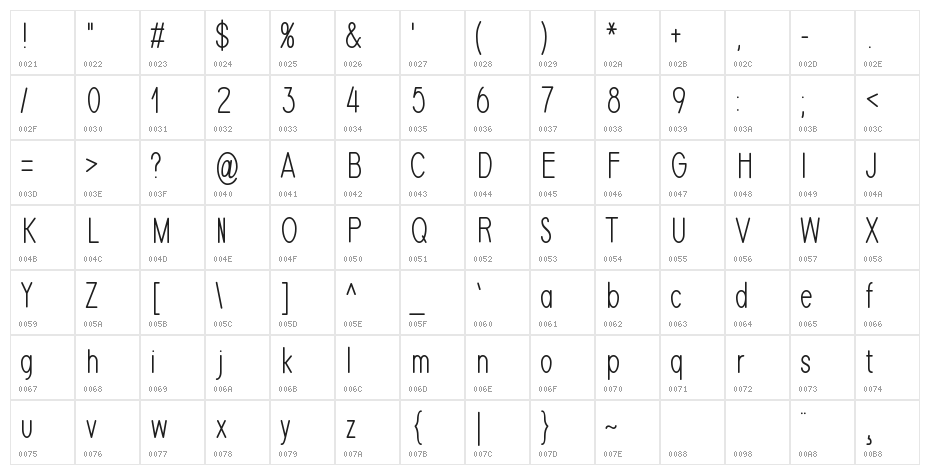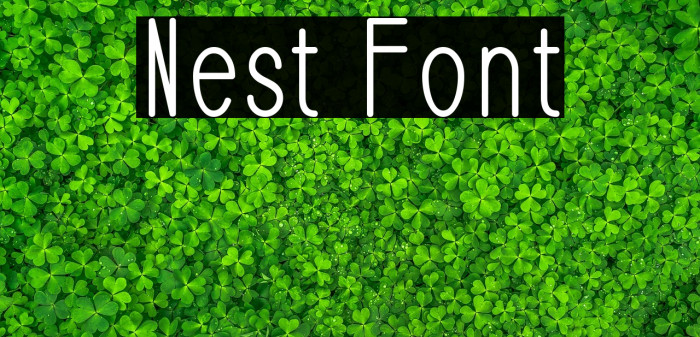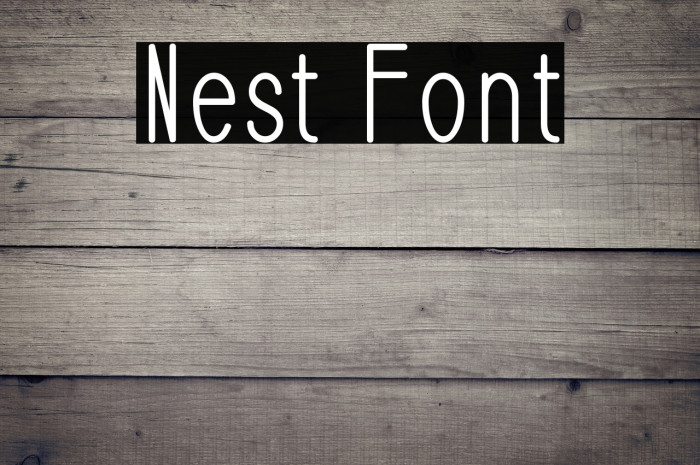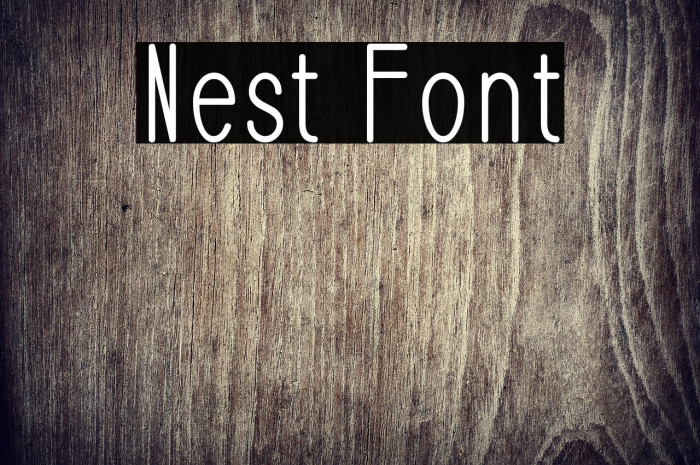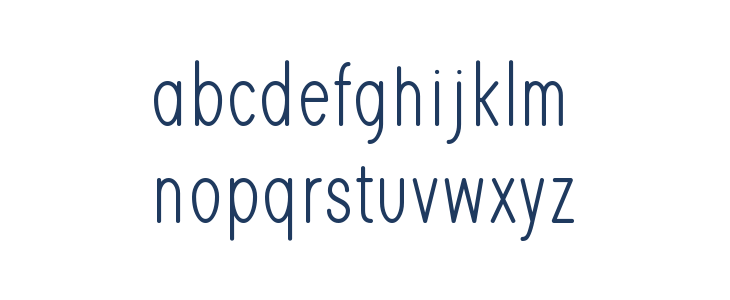
Nest Font
✎ Sans Serif
Nest Description
This font features a clean and modern sans-serif design with a uniform stroke width that provides a sleek and contemporary appearance. The characters are tall and slightly condensed, offering a streamlined look that enhances readability. The uppercase letters are bold and assertive, while the lowercase letters maintain a consistent height, contributing to a balanced and harmonious text flow. The numerals are clear and distinct, making them ideal for both digital and print applications. Special characters are well-defined, ensuring versatility across various contexts. The overall aesthetic is minimalist, making it suitable for a wide range of design projects.
| Width | Condensed |
| Use Case | Headlines, Body text, Logos |
| Proposed Projects | Ideal for branding, web design, advertising, and editorial layouts. |